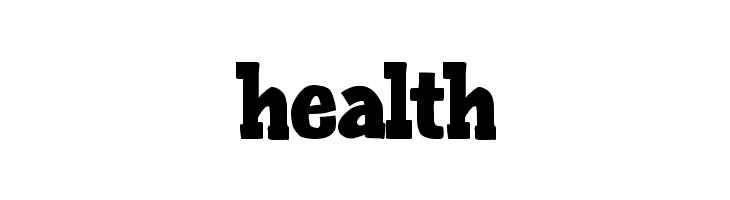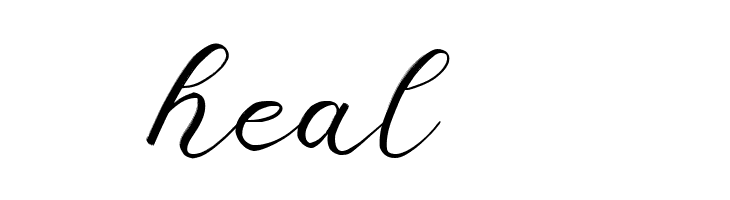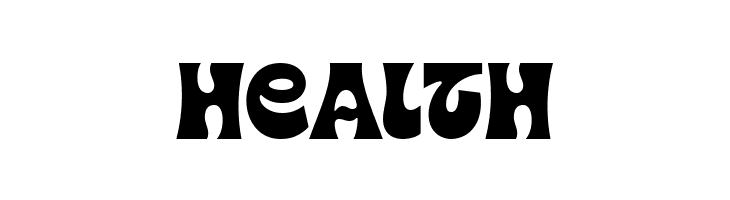
( Fonts by Gassstype )
A bold, playful slab serif with thick, uniform strokes and a slightly rounded finish.
A graceful and elegant script font with flowing, cursive strokes.
An elegant script font with flowing, interconnected letters and ornate flourishes.
A bold, flowing script font with decorative flourishes and a modern aesthetic.
( Fonts by Gassstype )
A bold, dynamic handwritten font with expressive strokes and playful curves.
( Fonts by Moka Type Studio )
A classic serif font with elegant strokes and a modern twist.
( Fonts by HansCo )
Bold, retro decorative font.
A modern, elegant handwritten font with fluid, cursive strokes.
( Fonts by Typeline Studio )
A playful, handwritten font with rounded, uniform strokes and a casual vibe.
( Fonts by Wildan Suprian syah )
A playful, hand-drawn font with a childlike, whimsical style.